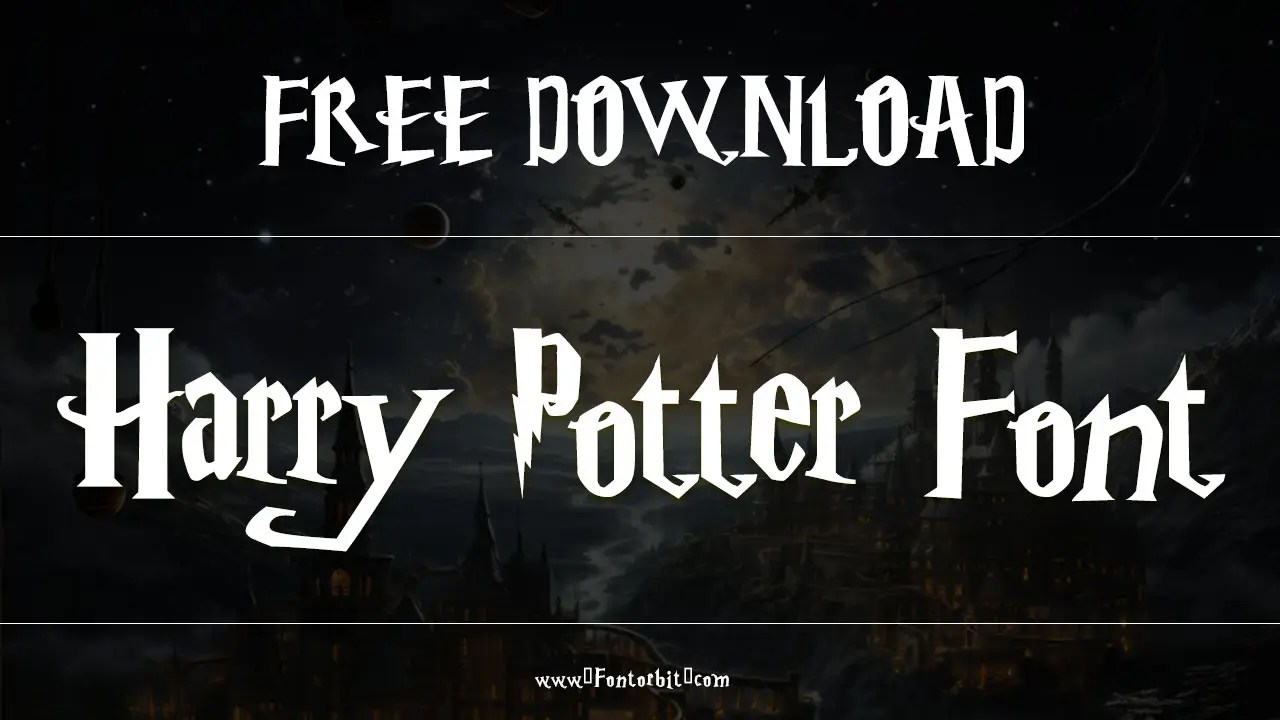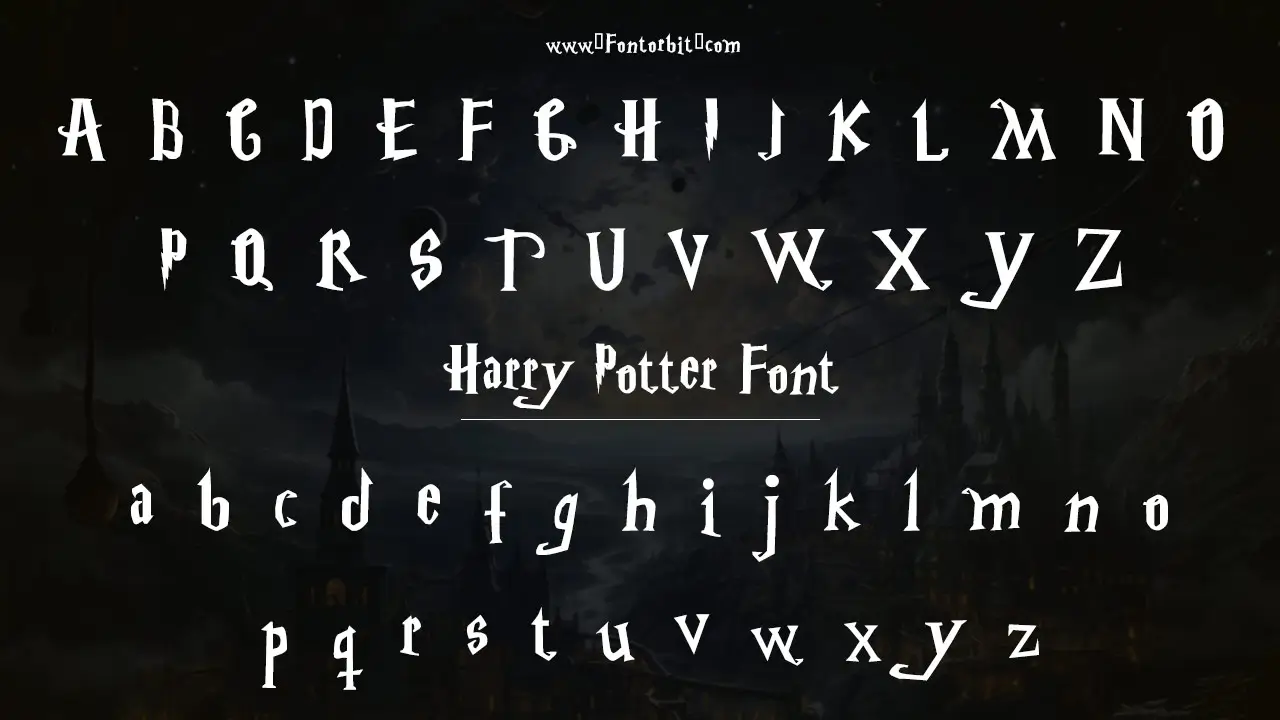
Typography plays a crucial role in creating the Harry Potter universe aesthetic. Designed by Phoenix Phonts, the Harry P font is one of the most recognizable typefaces inspired by the Harry Potter book series.
Whether designing a book cover, banners, or personal use projects, choosing the right font pairings enhances the magical appeal of your work.
Why Font Pairing Matters In Harry Potter Designs
Pairing fonts correctly helps maintain style, readability, and theme consistency. A well-chosen decorative font combined with a complementary logo font elevates the wizardry school aesthetic, making the design more engaging.
Top Font Pairings For Harry Potter-Themed Designs
1. Harry P + Adobe Garamond
- Font Family: Harry P, Adobe Garamond
- Why It Works: The classic Adobe Garamond adds a timeless book title feel to the mystical Harry P font.
- Best Uses: Harry Potter book covers, novel series designs, and spellbook graphics.
2. Harry P + Magic School
- Font Family: Harry P, Magic School
- Why It Works: Magic School captures the whimsical spirit of a wizarding world theme.
- Best Uses: Wizardry school posters, party invitations, and magical event banners.
3. Harry P + Typewriter Fonts (Courier, American Typewriter)
- Font Family: Harry P, Courier, American Typewriter
- Why It Works: Typewriter fonts bring a vintage, Hogwarts-letter feel to your designs.
- Best Uses: Hogwarts school letters, Rubeus Hagrid-inspired designs, and old-world parchment texts.
4. Harry P + Hocus Pocus
- Font Family: Harry P, Hocus Pocus
- Why It Works: Hocus Pocus is a handwritten font that enhances the mystical vibe of Harry P.
- Best Uses: Fan art, craft projects, and decorative banners.
5. Harry P + Western Fonts (Wanted, Algerian)
- Font Family: Harry P, Wanted, Algerian
- Why It Works: Western fonts add a rustic, enchanted charm to your designs.
- Best Uses: Potion labels, Rubeus Hagrid-themed designs, and enchanted maps.
6. Harry P + Decorative Fonts (Magical Me, Parseltongue)
- Font Family: Harry P, Magical Me, Parseltongue
- Why It Works: Decorative fonts like Magical Me give an eerie yet fascinating look to text.
- Best Uses: Harry Potter universe banners, themed parties, and interactive fan websites.
2.What Is The Closest Commercial Font To The Harry Potter Typeface?
Adobe Garamond is commonly used in Harry Potter novels and matches well with Harry P.
3.What Font Is Used For Hogwarts School Letters?
Typewriter fonts like Courier or American Typewriter resemble the official Hogwarts letter font.
4.Are Different Fonts Used For Different Harry Potter Books?
Yes, various editions have unique typefaces, but Harry P remains a fan-favorite.
5.Can I Create My Own Harry Potter-Style Custom Font?
Yes! Many designers create their own custom fonts inspired by the Harry Potter book series.
6.What’s The Best Font For A Harry Potter-Themed Craft Project?
Magical Me and Hocus Pocus are great handwritten fonts for craft projects.